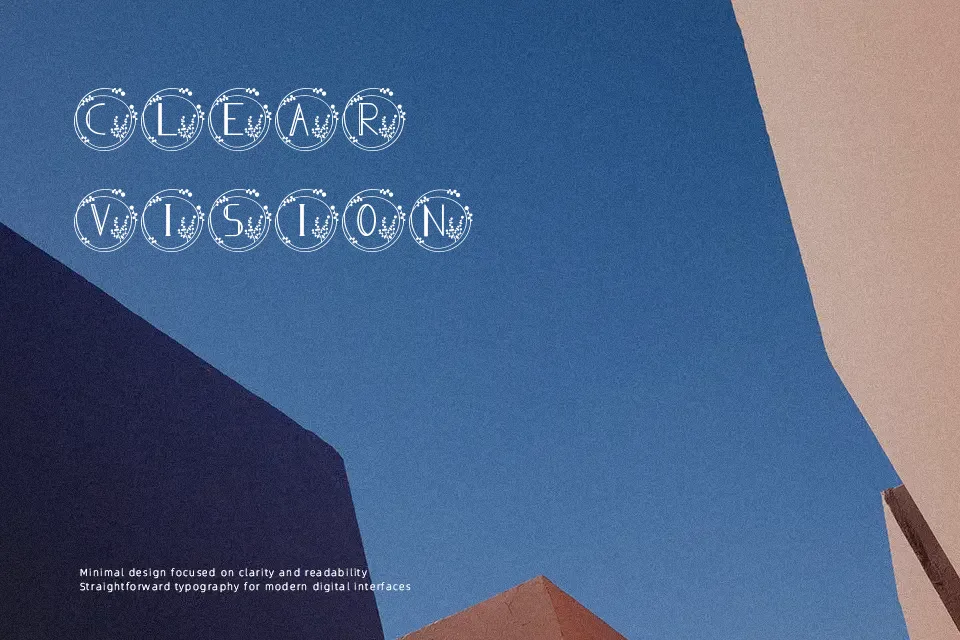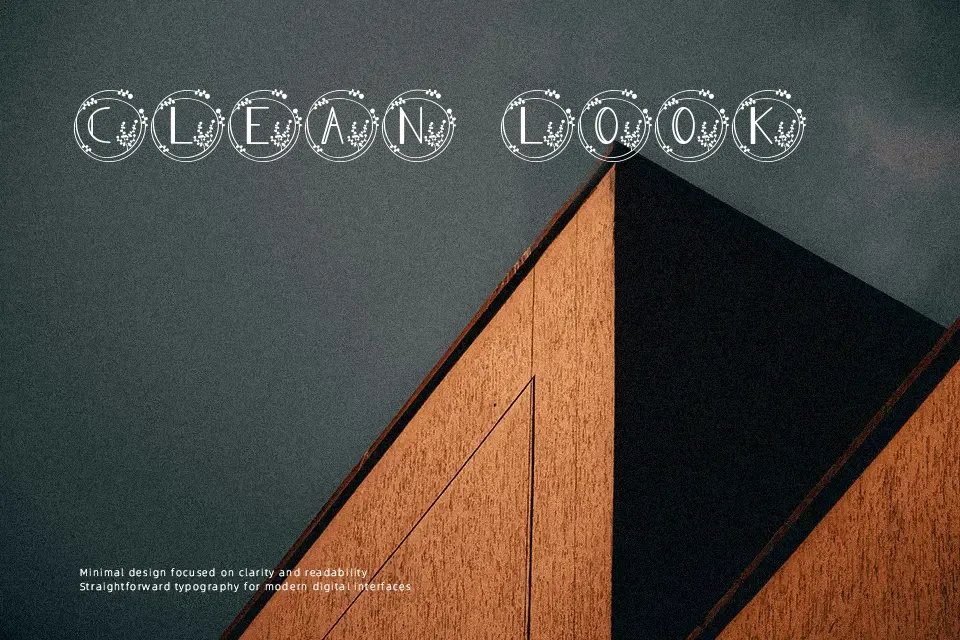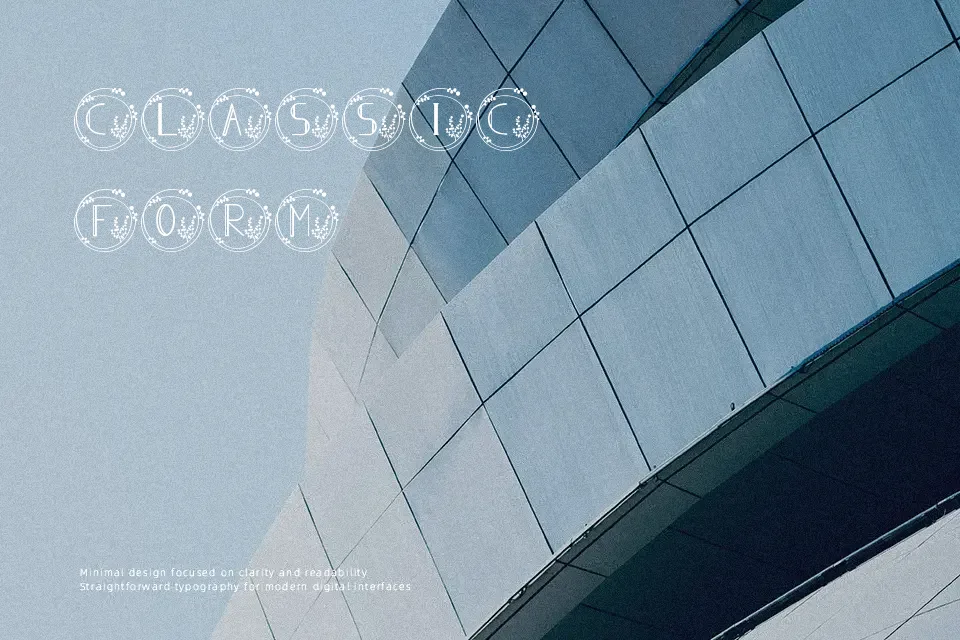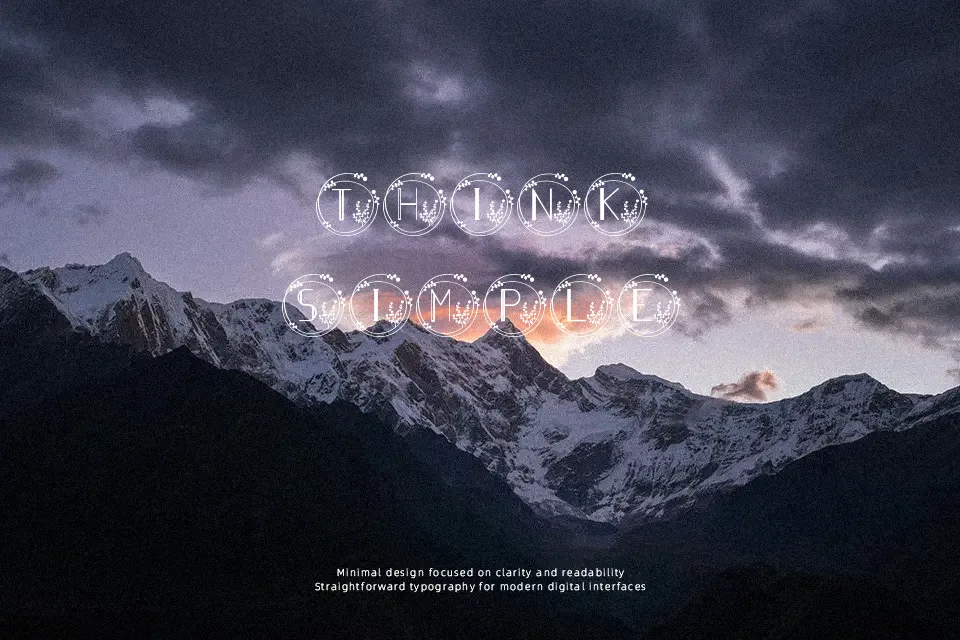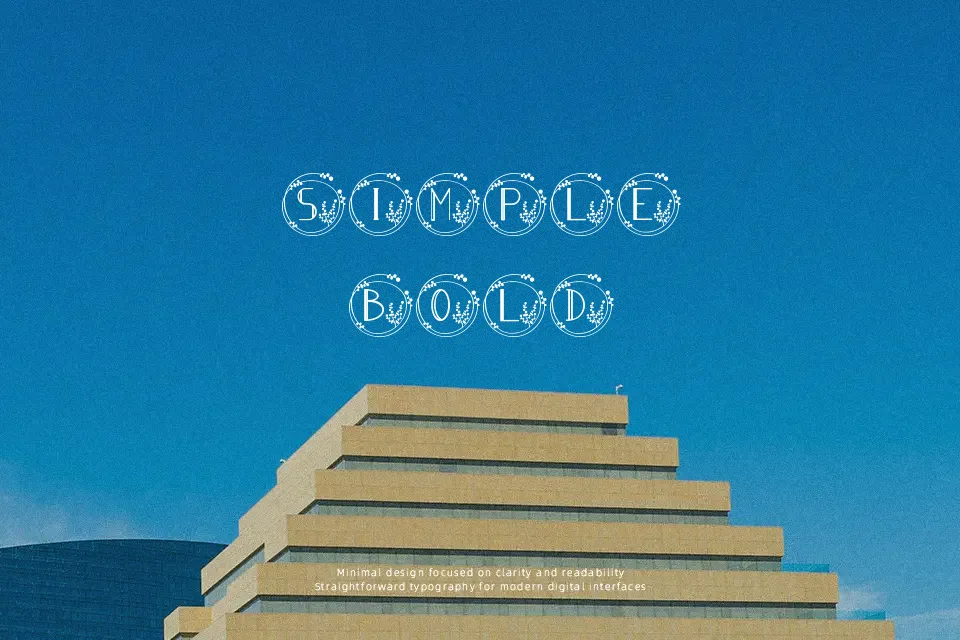
Clara Font
Designed by Letterayu
Clara Font features an intricate decorative design where classical capital letters are entwined with elaborate botanical accents and flowing organic flourishes. Each uppercase letterform incorporates fine internal linework balanced against delicate floral tendrils, creating generous visual rhythm and a stately presence. The spacing is naturally wide to accommodate the extensive ornamental swashes surrounding each character. In practice, the letterforms remain easy to distinguish when isolated as drop caps or centerpiece monograms in luxury branding. However, the sheer density of decorative linework impairs legibility at small sizes, making the typeface unsuited for continuous body text. The ornate detailing delivers maximum impact in large-scale headline compositions.
wedding invitations, monogram stationery, editorial drop caps, luxury packaging
continuous paragraph reading, small mobile interfaces, technical spreadsheets, dense editorial body text
Perfect for branding, headline, and invitation, with a artistic and decorative style.